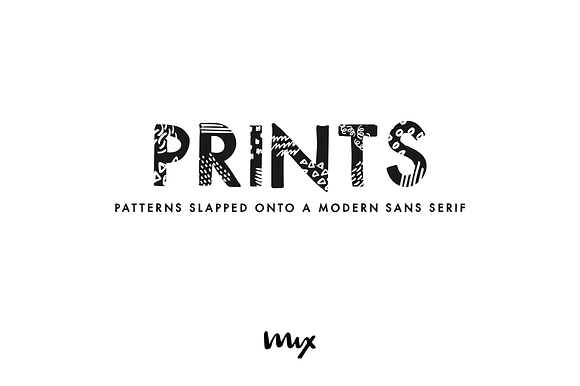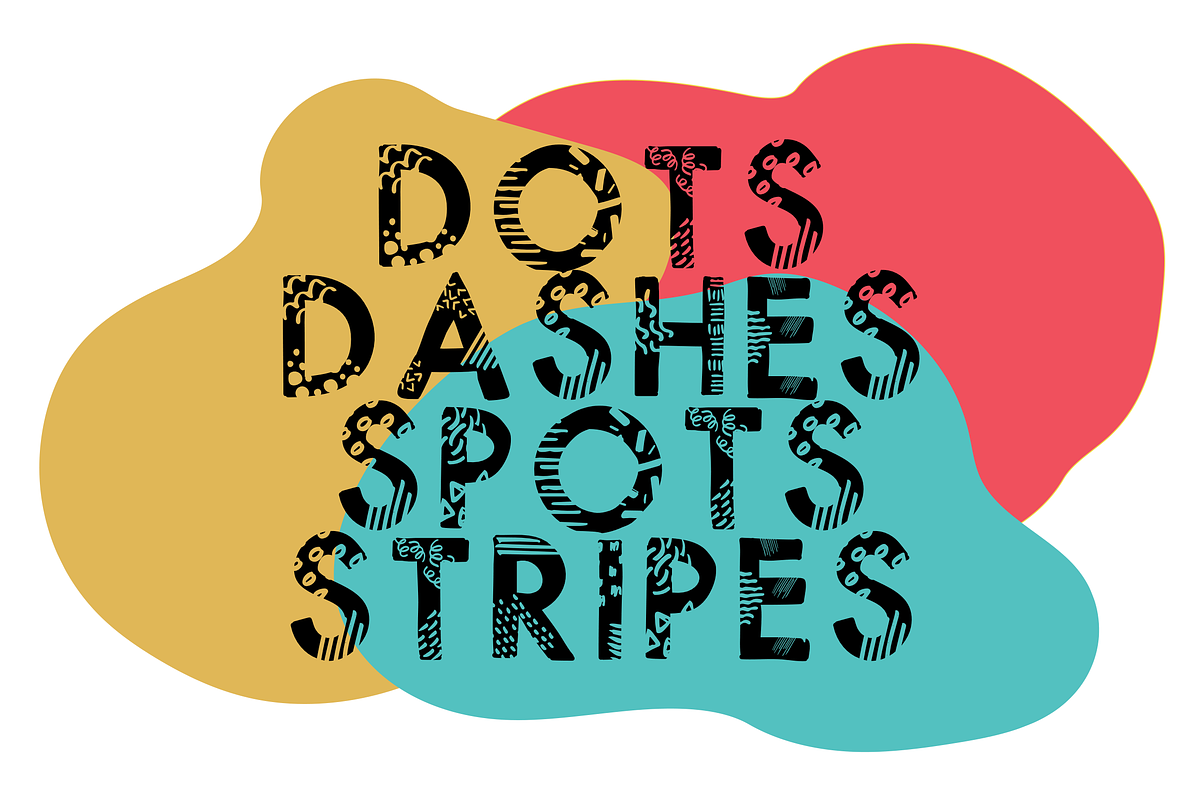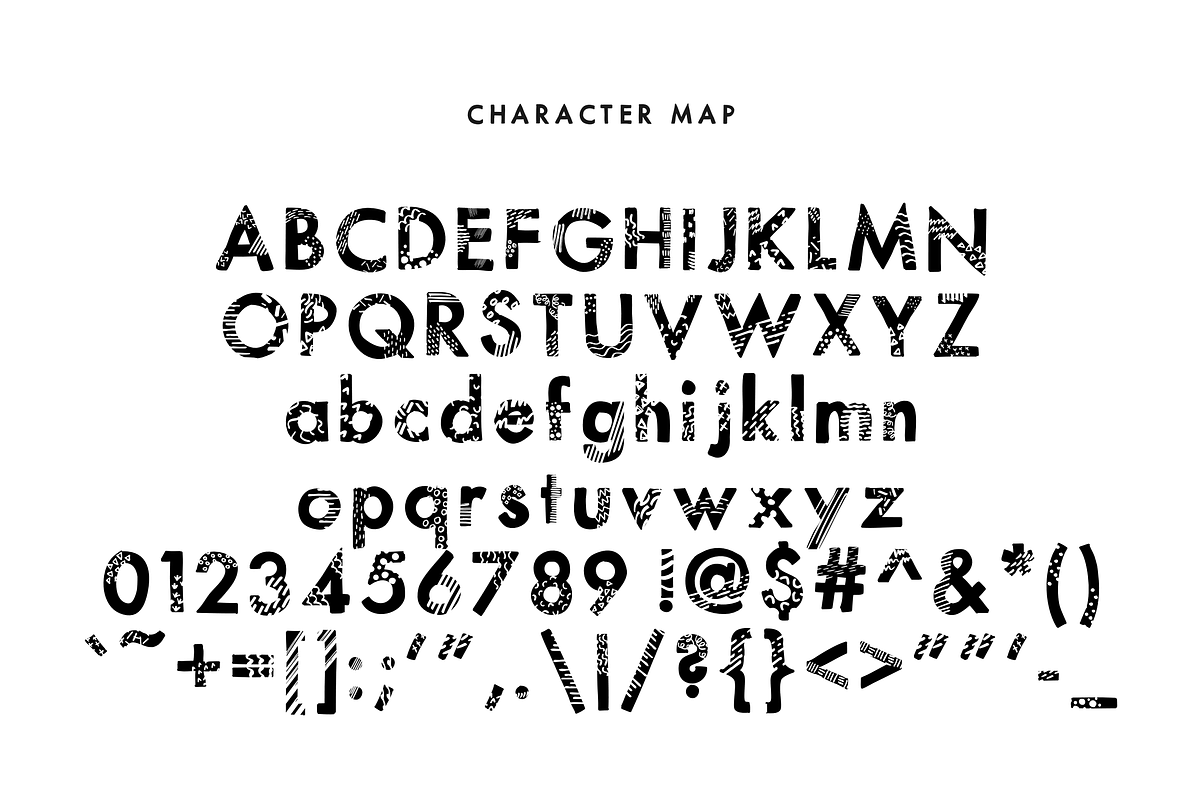
Prints — A Printed Sans Serif
MIX PRINTS, is a handwritten sans serif, slapped with all sorts of patterns and prints. All the dots, dashes, shapes, spots and stripes come from this pattern bundle here: